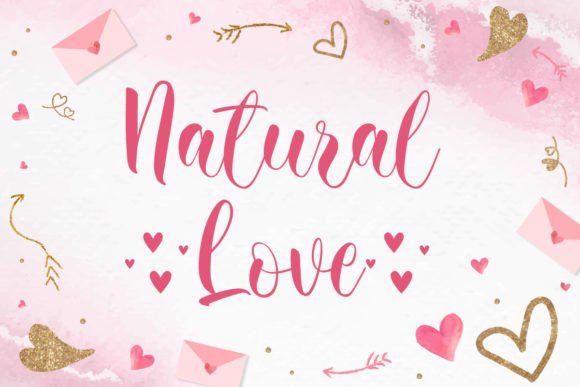
Step into the enchanting world of Natural Love Font, a mesmerizing script font that dances with grace and elegance across your screens. Each letter, meticulously crafted by the talented hands of NihStudio, exudes a charm that is both timeless and utterly modern. It's the perfect font for those seeking a touch of sophistication and effortless beauty in their designs.
With its sweeping curves and delicate flourishes, Natural Love Font brings a sense of playfulness and romance to your projects. It's ideal for creating wedding invitations with a personal touch, adding a touch of whimsy to social media posts, or crafting heartfelt letters to loved ones.
Let your creativity bloom as you explore the versatility of Natural Love Font. Its ability to effortlessly blend with other fonts makes it a versatile tool for creating stunning designs. Whether you're a seasoned designer or just starting your creative journey, Natural Love Font is your perfect companion, ready to elevate your projects to new heights.
Dive into a world of endless possibilities with Natural Love Font. Let its enchanting beauty captivate your audience and leave a lasting impression. Download it today and embark on a creative journey like no other. Embrace the love and joy that Natural Love Font brings to your designs and let your imagination soar.